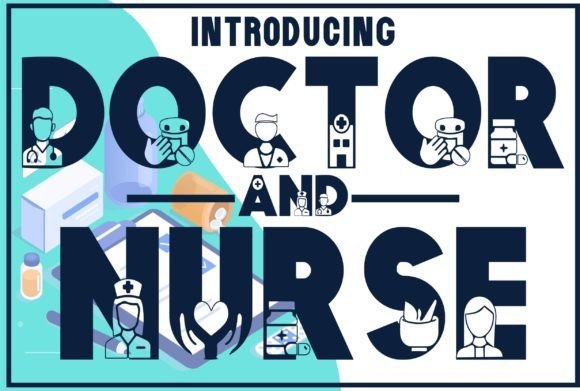
Introduction to Doctor and Nurse Font
Doctor And Nurse is a thick lettered and incredibly unique decorative font.
It can be used for various design ideas, particularly those related to doctors, nurses, and healthcare staff in general .